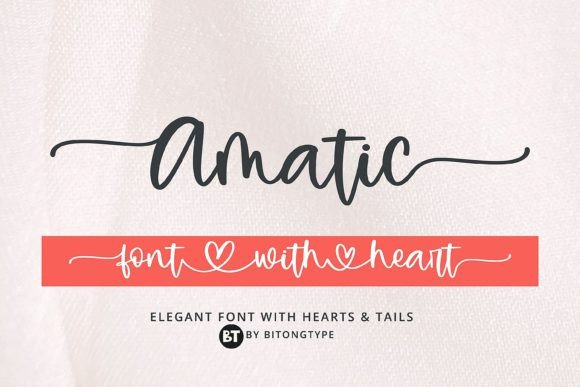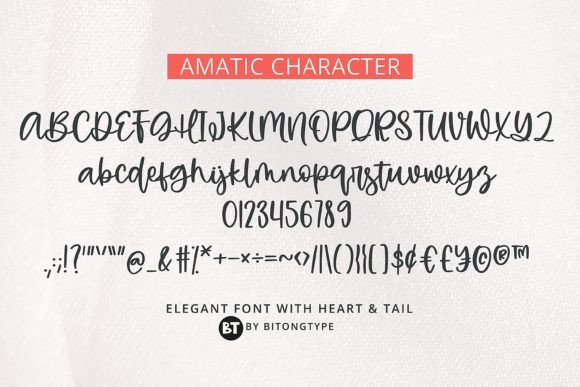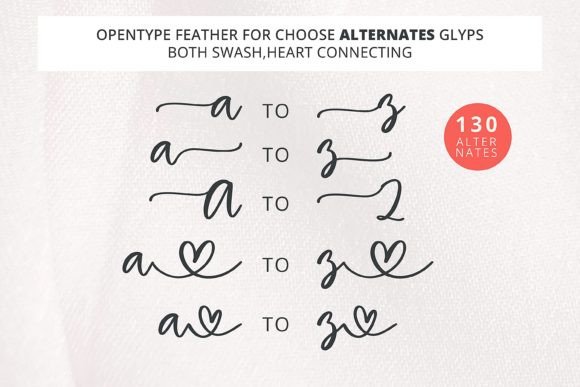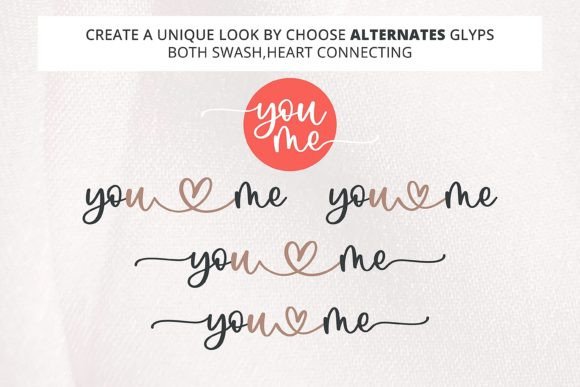
Amatic Font
About the Amatic Font
Introducing the Amatic Font, a beautifully crafted typeface designed to elevate your creative projects. Amatic is a gorgeous handwritten font. Fall in love with its incredibly versatile style and use it to create gorgeous wedding invitations, beautiful stationary art, eye-catching social media posts, and much more!
Amatic’s casual, friendly personality makes it ideal for projects requiring a handcrafted feel, such as branding for artisan businesses, wedding stationery, or social media graphics. It excels in headlines, short text blocks, and logos, adding a touch of warmth and approachability. However, its informal nature makes it less suitable for body text or lengthy paragraphs, and its readability suffers at smaller sizes.
Pairing Amatic effectively requires considering its hand-drawn origins. Sans-serif fonts like Open Sans or Lato provide a clean contrast, balancing Amatic’s informality. For a more sophisticated pairing, consider a classic serif like Merriweather or Playfair Display to add elegance and visual weight. Avoid pairing it with other highly decorative scripts, as this can lead to visual clutter.
Amatic’s overall aesthetic is best described as charming and approachable, conveying a sense of authenticity and handmade quality. Its strong character is well-suited to brands emphasizing craftsmanship, individuality, and personal connection.